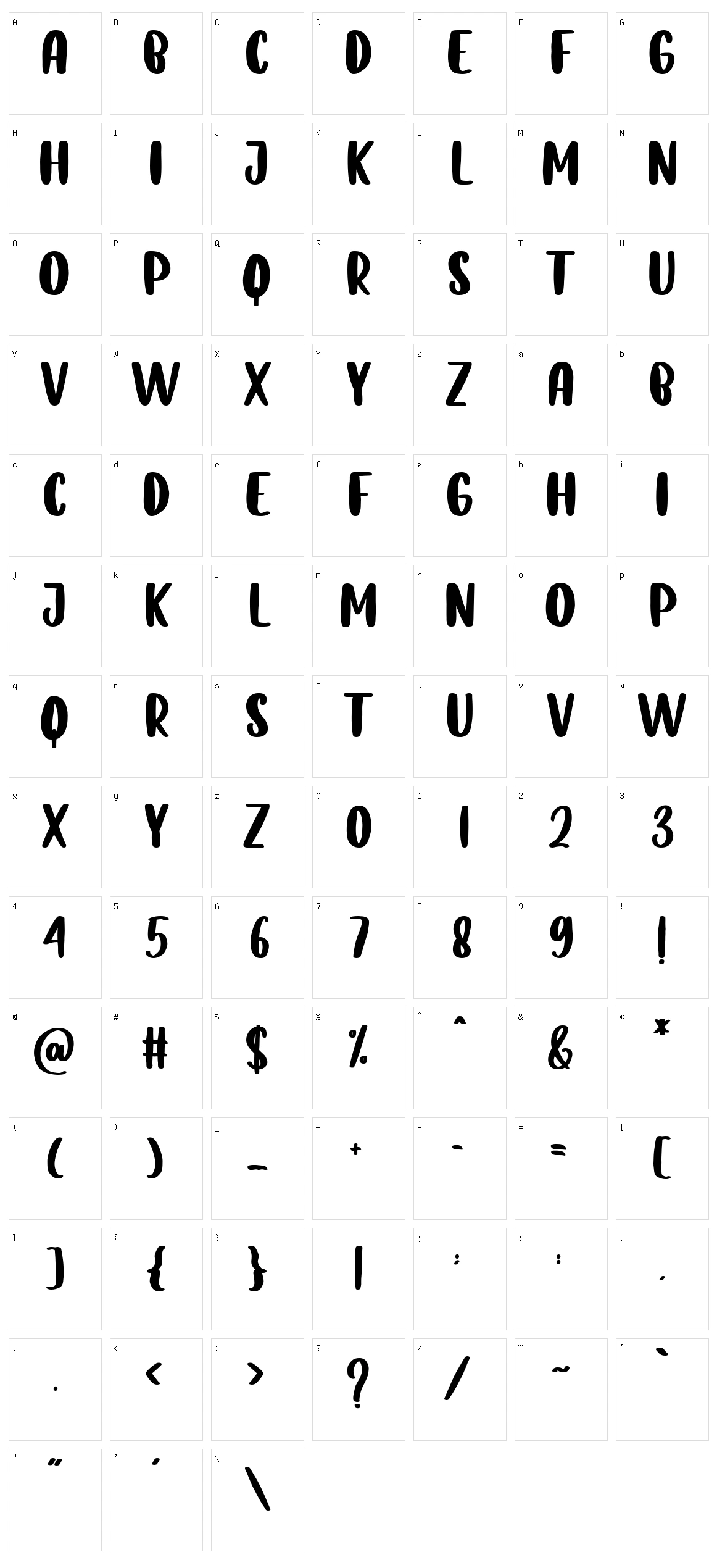
The free font Lemon Tea is carefully designed by Fikryal studio, showcasing a thoughtful balance of creativity and usability and falls under the Cartoon font style. When you download the ZIP file, it contains only 44.71 KB of font files, making it lightweight and quick to download. Please review the license details below to understand permitted usage and distribution rights. If license information is not available, we recommend using this font for personal projects only or contacting the author directly for commercial usage permissions.